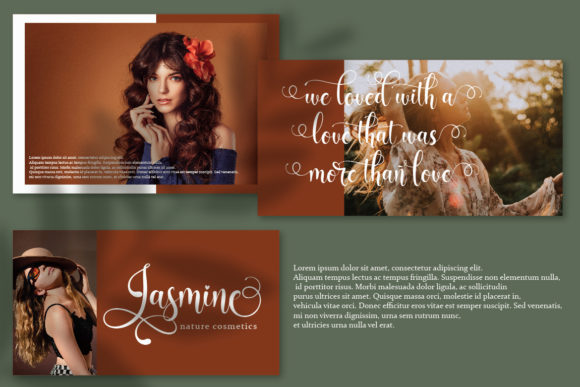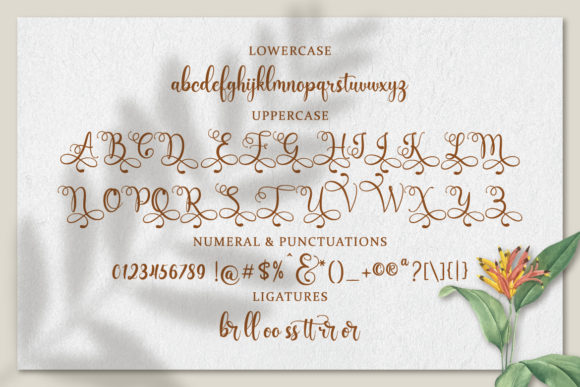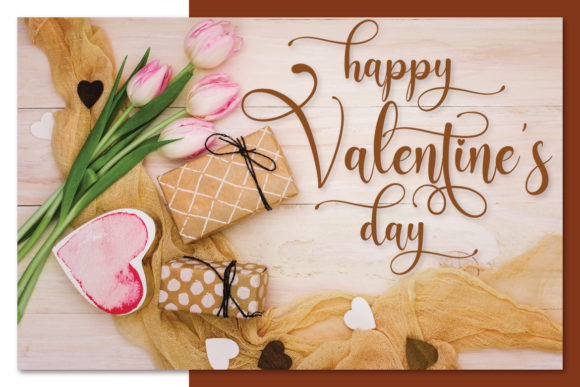
Introduction to Floristya Font
Floristya feels equally playful and elegant, making it an incredibly great addition to any craft library.
Key Features of Floristya Font